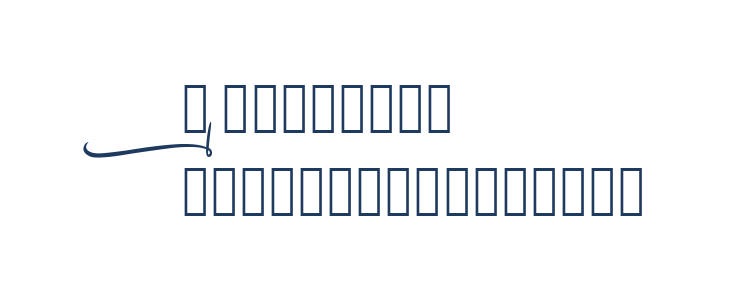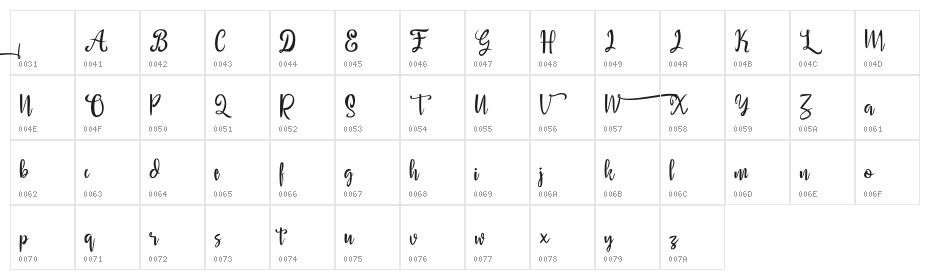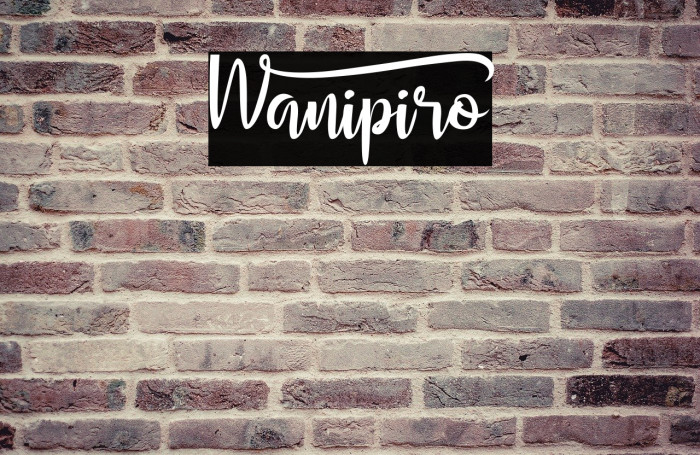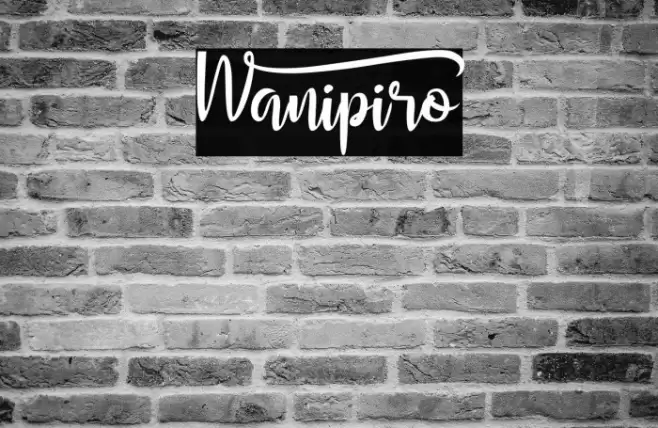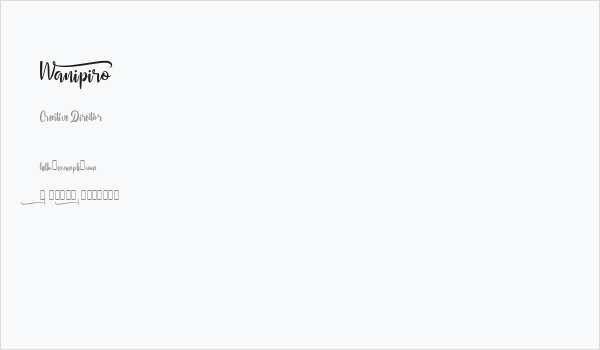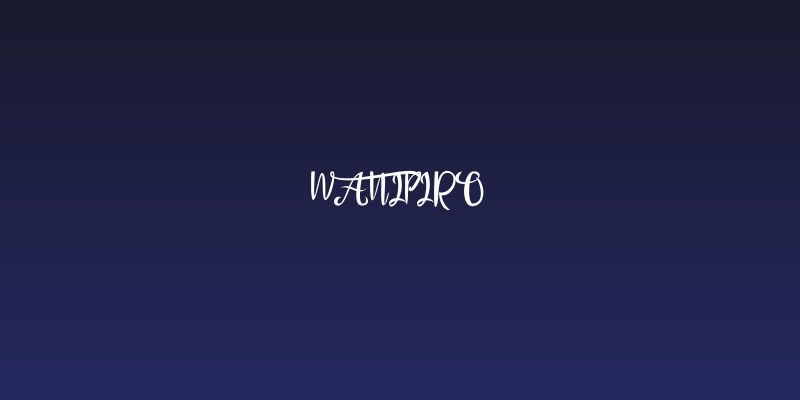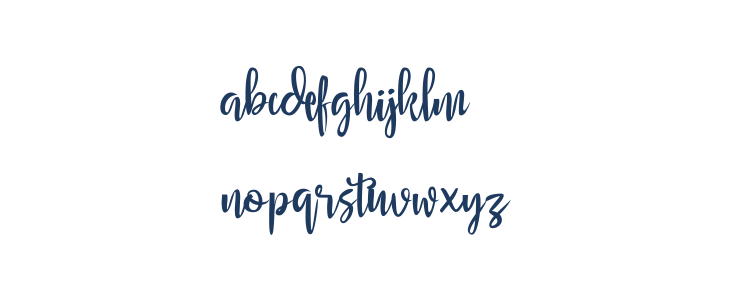
Wanipiro Font
Wanipiro Description
This font exhibits a lively and flowing script style, characterized by its elegant curves and loops. The uppercase letters are bold and expressive, with a playful yet sophisticated flair. The lowercase letters maintain a consistent fluidity, enhancing readability while preserving the decorative essence. The numerals and special characters are crafted with the same attention to detail, ensuring a cohesive appearance across all text. This font's dynamic strokes and artistic flair make it suitable for creative and expressive designs.